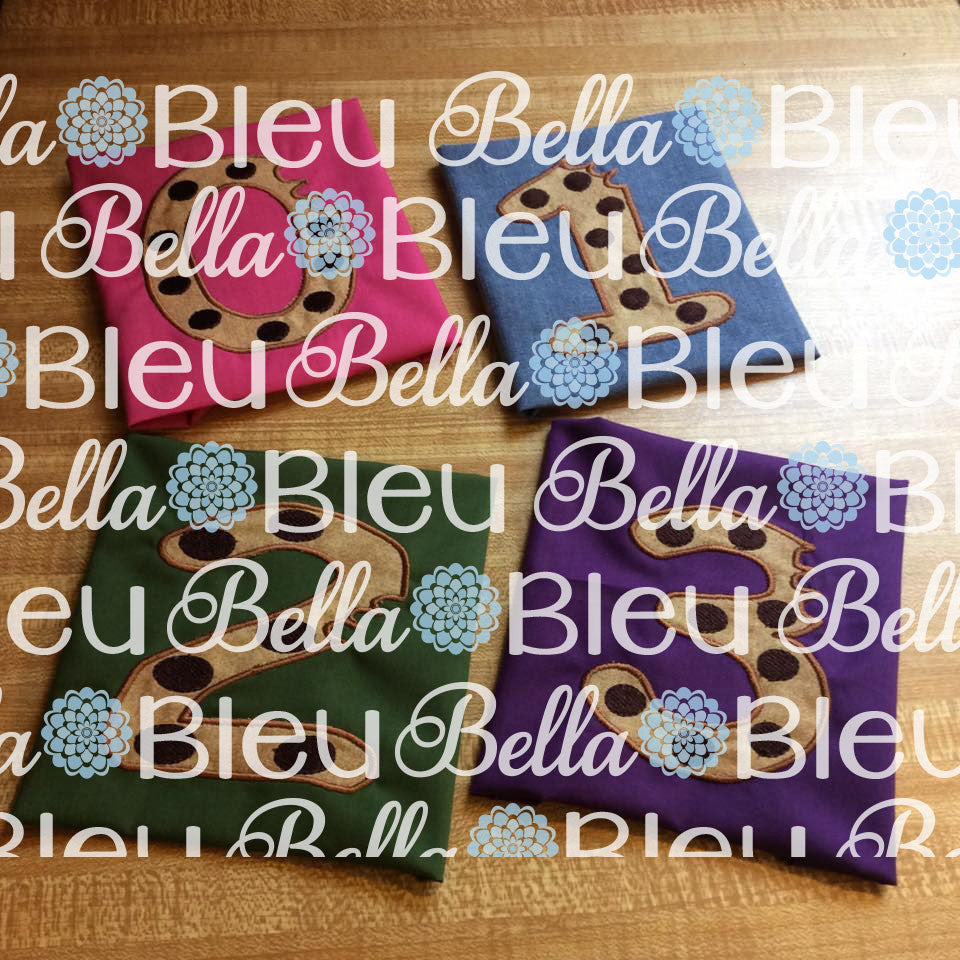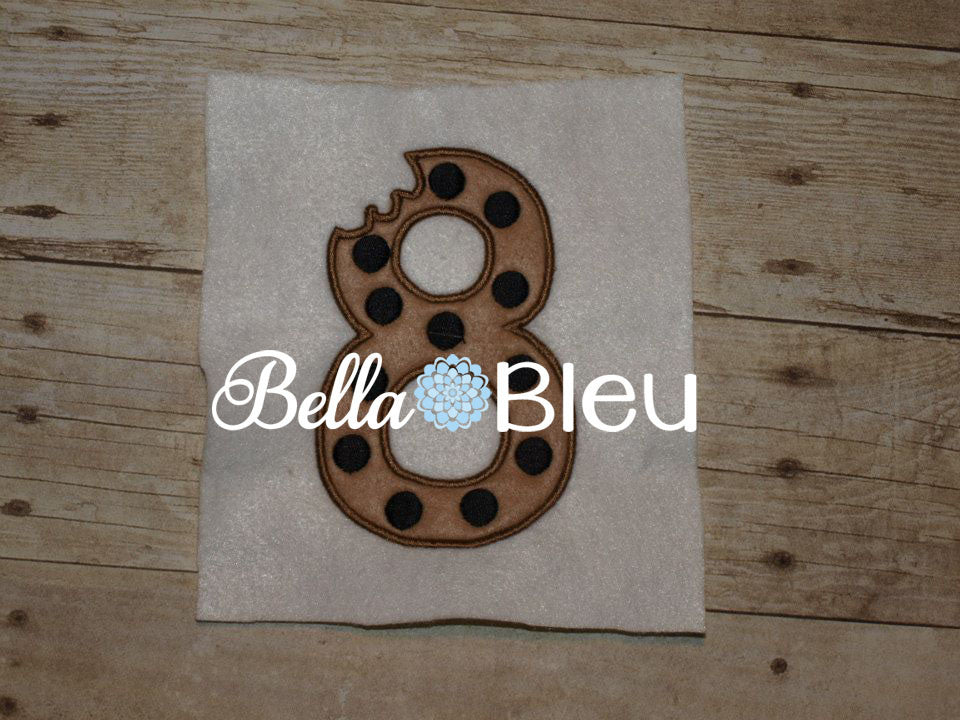
Cookie Numbers 0 through 9 Applique Embroidery Design. Great for Birthday Shirts Font
This is a darling single design. This is great for Totes, T-shirts and gifts. The design will be in the 5x7 hoop size.
These are perfect for any project!
Set includes 0-9!
Perfect for birthday tees!